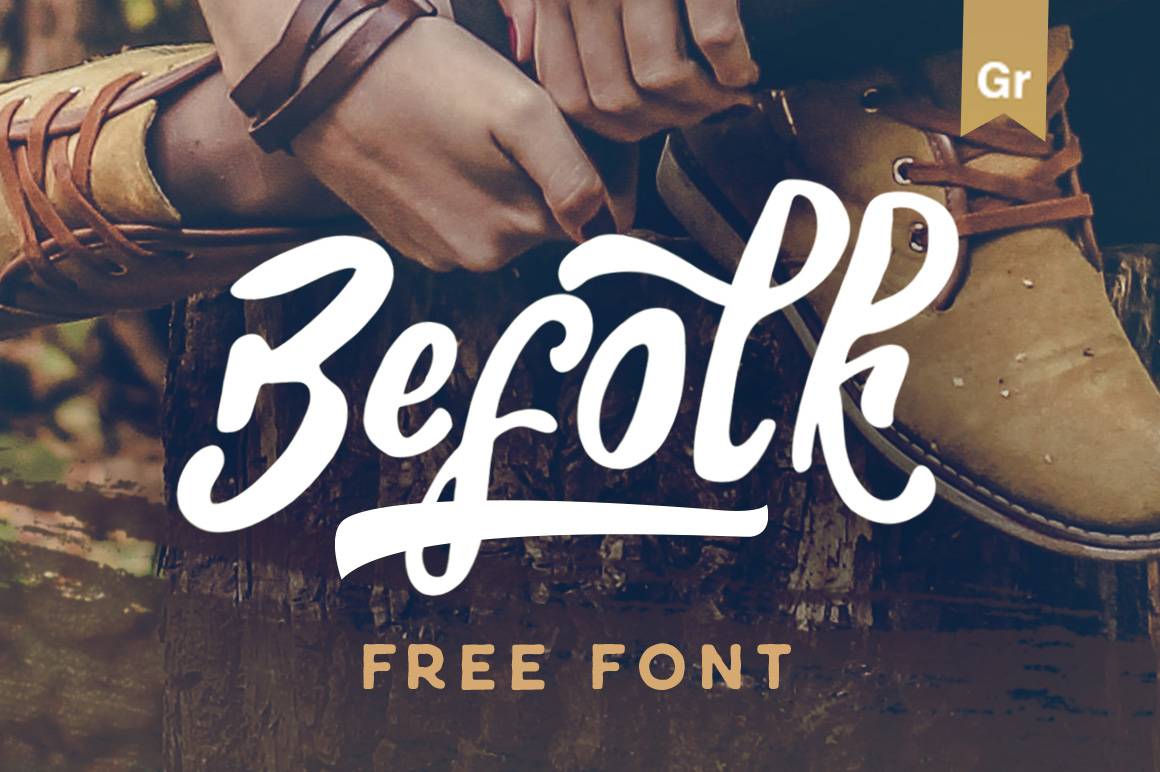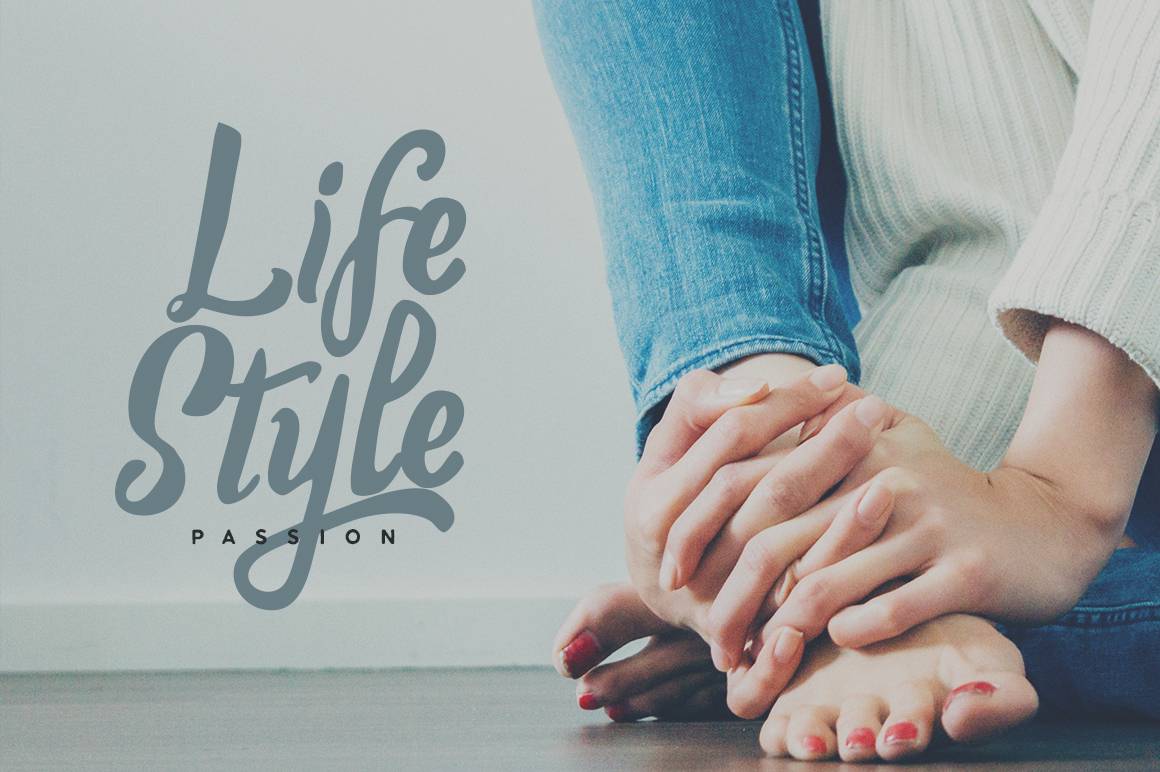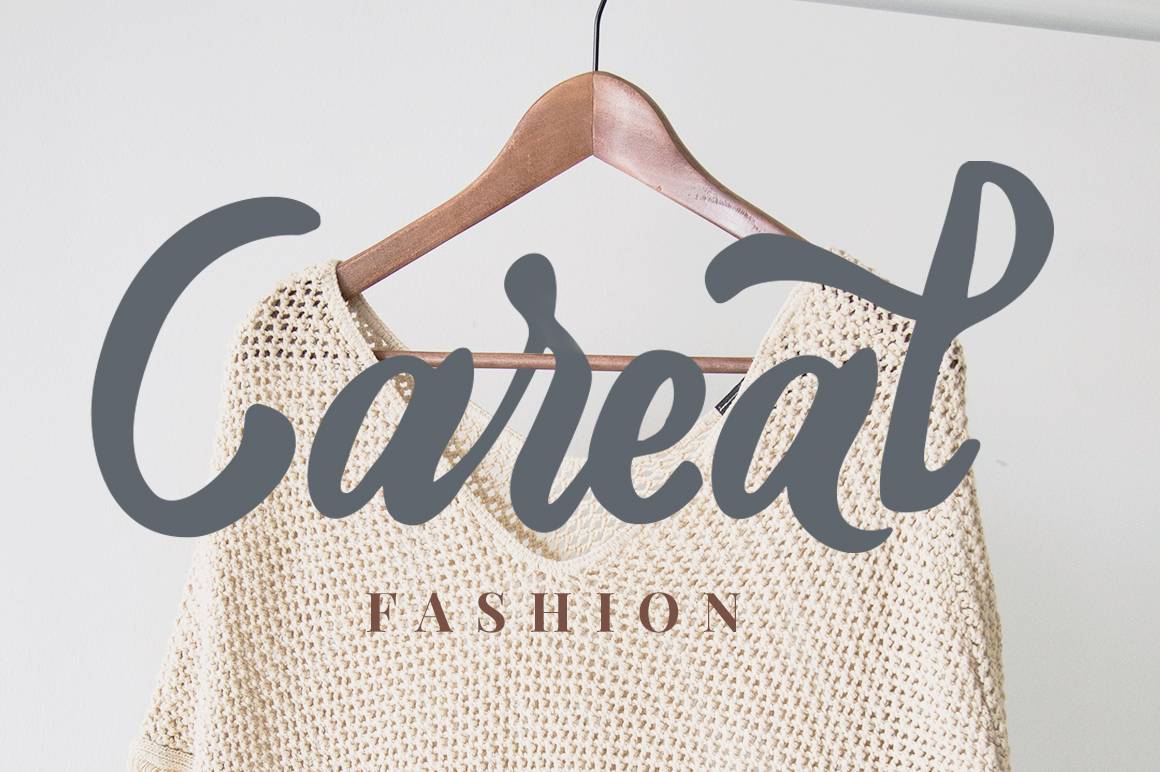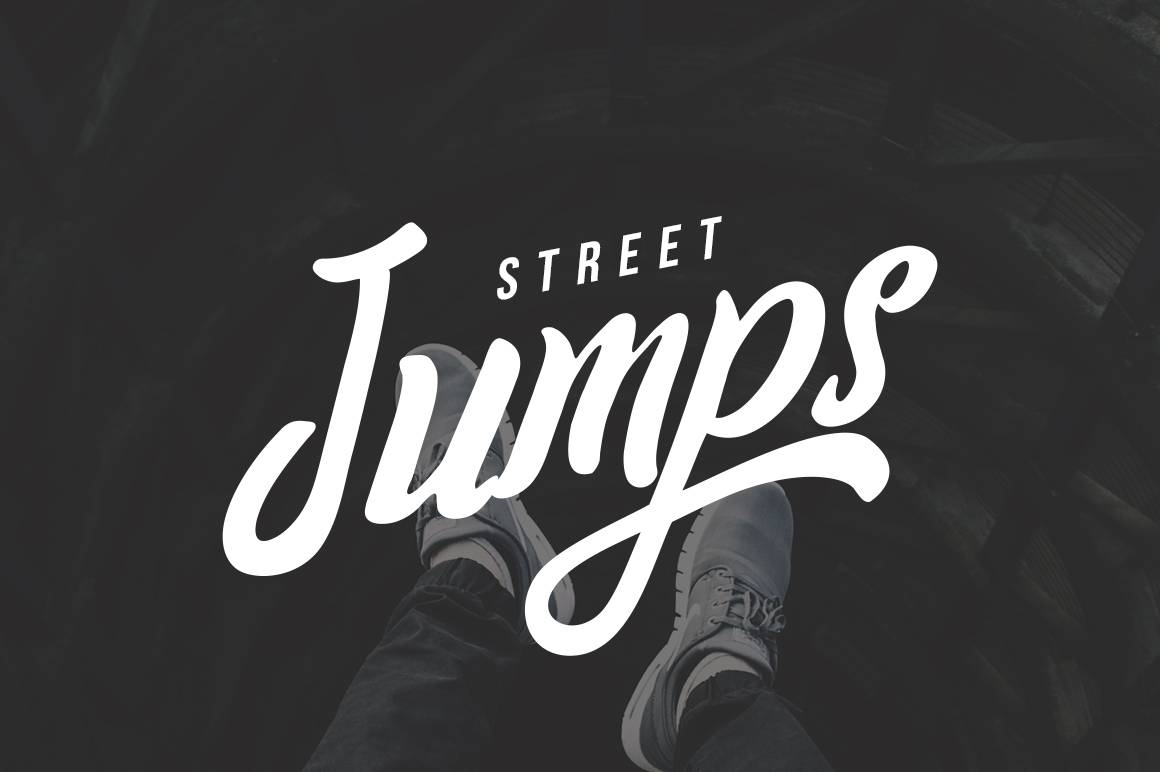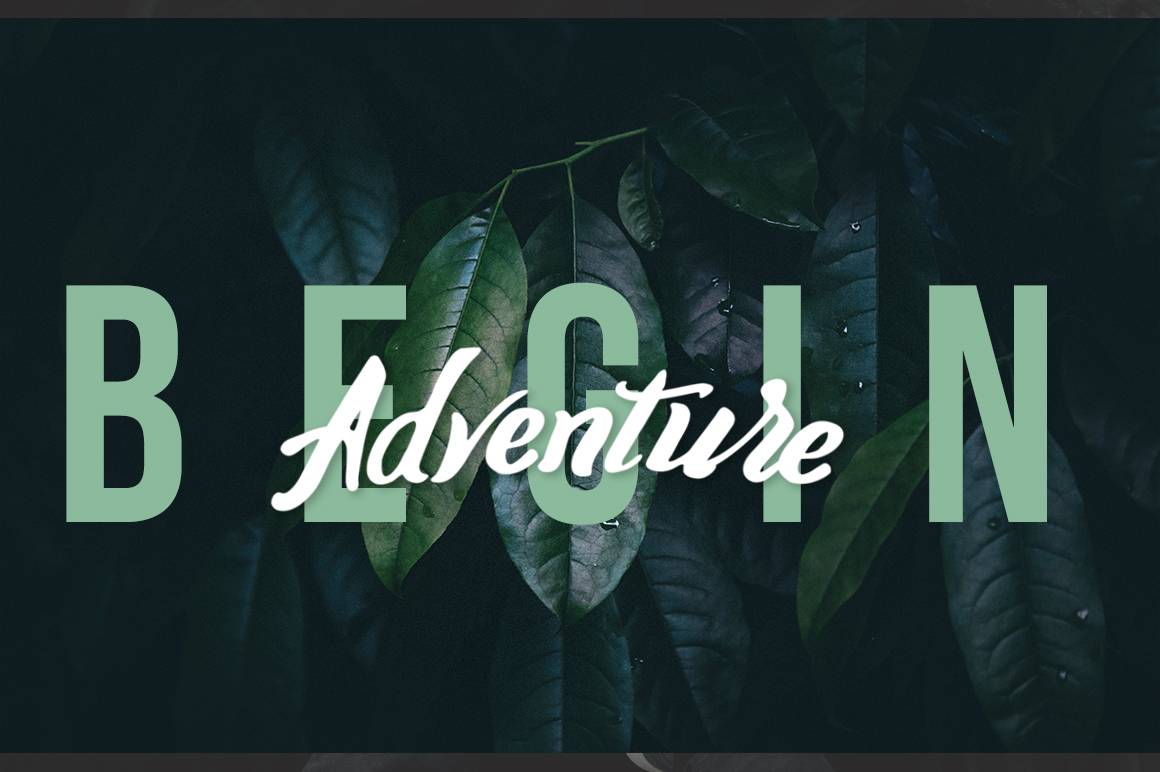
Befolk is a lively, script-style font with a bold, handwritten feel characterized by smooth curves and playful letterforms. Its medium weight and slightly condensed proportions make it perfect for expressive headlines, logos, and creative branding that aim to convey a friendly and approachable personality. This font works well in designs that need a distinctive, informal touch with a hint of vintage charm.
Befolk Font
About Befolk Font
| Font family | Befolk Font |
| Release date | 2016-10-29 |
| Designer | Hendra Maulia |